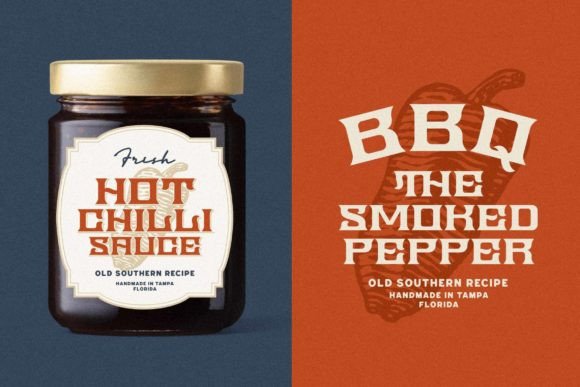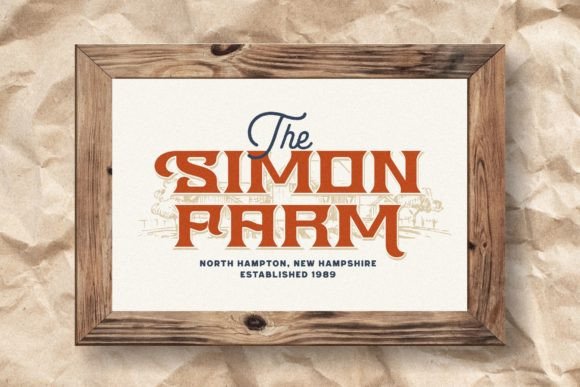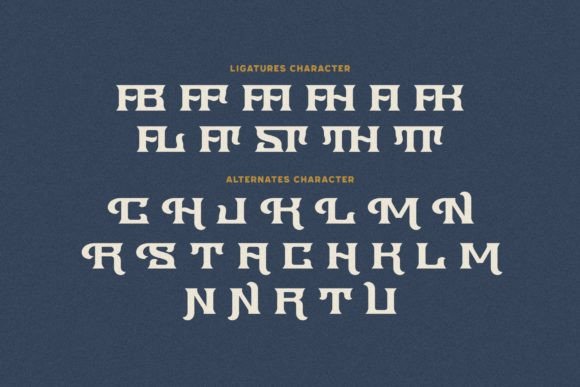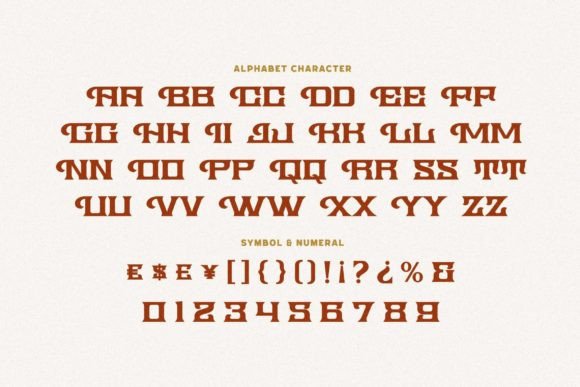
Introduction to Onec Nords Font Font
Fonts play a crucial role in design, and the Onec Nords Font font is a typeface that brings both character and versatility to any project. Whether you’re working on a branding project, a website, or a print design, the Onec Nords Font font offers a unique style that can elevate your work.
Onec Nords is a vintage display font with a bold style.
Its retro charm and stylish appearance are great for adding an aesthetic touch to any of your designs This font is PUA encoded which means you can access all the glyphs and ligatures with ease.
Key Features of Onec Nords Font Font
Why Choose Onec Nords Font Font?
The Onec Nords Font font is more than just a typeface – it’s a design tool that helps you communicate your message with style and clarity. Its unique character set and versatile design make it suitable for a wide range of applications, from elegant invitations to bold headlines.
With its carefully crafted letterforms and balanced proportions, the Onec Nords Font font ensures readability and visual appeal across all mediums.
What makes Onec Nords Font font special?
The Onec Nords Font font stands out with its unique design, exceptional readability, and versatility across various design applications.